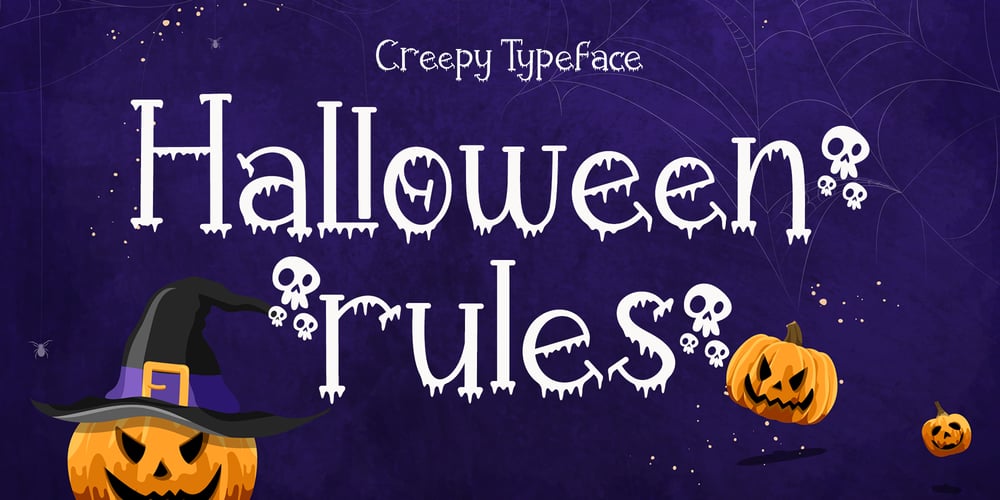
Halloween Rules
Halloween Rules font
Halloween Rules Font Family was designed by Agung Eko Nugroho and published by AEN Creative Studio. Halloween Rules contains 2 styles and family package options. Halloween Rules is a cool-lettered and spooky decorative font. It is perfectly suitable for any Halloween-related project or crafty idea! Add it confidently to your favorite creations and let yourself be amazed by the outcome generated. Halloween Rules is PUA encoded, which means you can access all of the glyphs and swashes with ease!